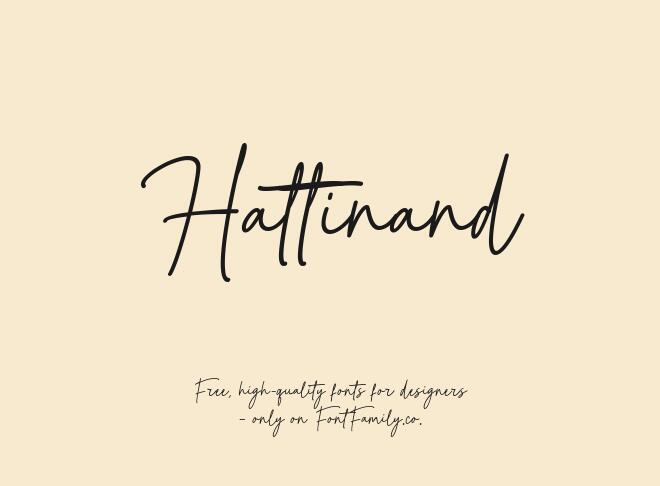
Hattinand Font
The Hattinand Font, crafted by Hattin Design Studio, is a classic handwritten typeface with an elegant touch. Its thin strokes and delicate curves make it stand out as an ideal choice for invitations, greeting cards, and personal branding. It's reminiscent of traditional calligraphy, yet its modern approach gives it a unique charm. The font is highly versatile and complements a broad range of design contexts. It shines in both print and digital platforms, offering high readability without compromising on style. Hattinand Font is a great choice for designers seeking a blend of classic elegance and contemporary sophistication in their projects. Its free personal use license makes it even more attractive for personal projects and freelance works.